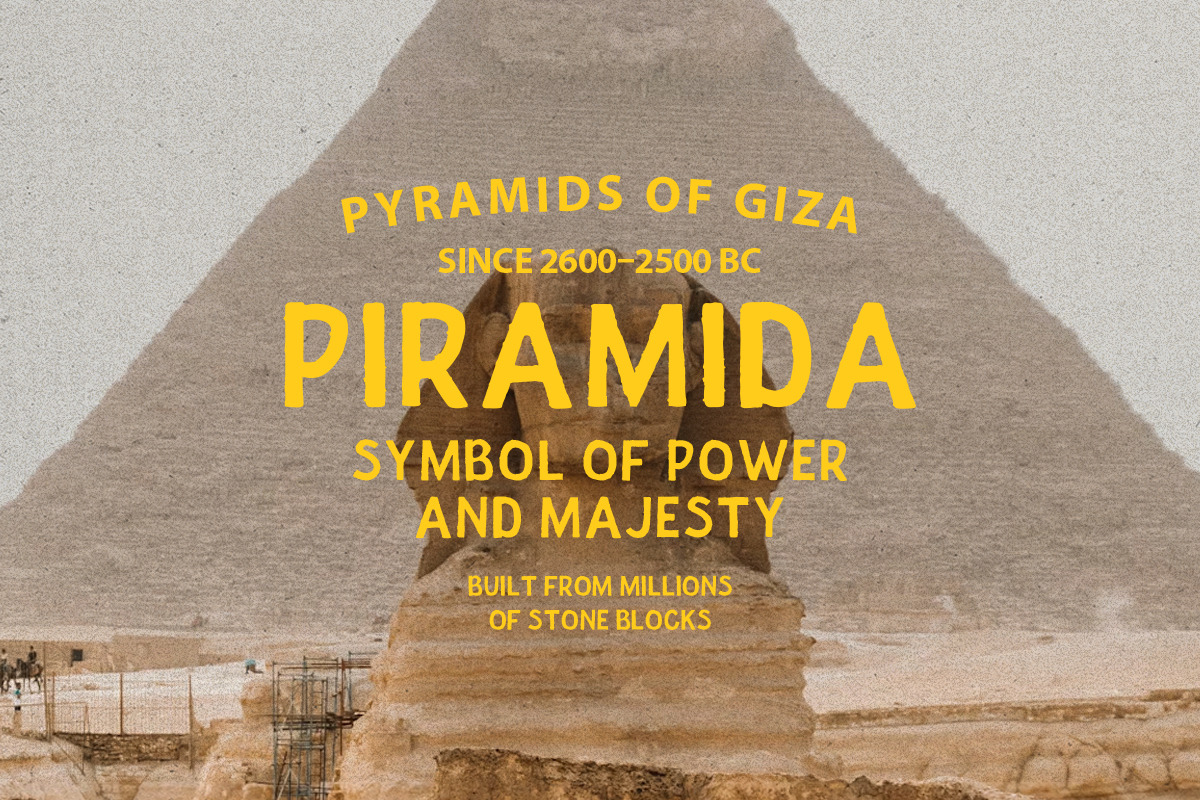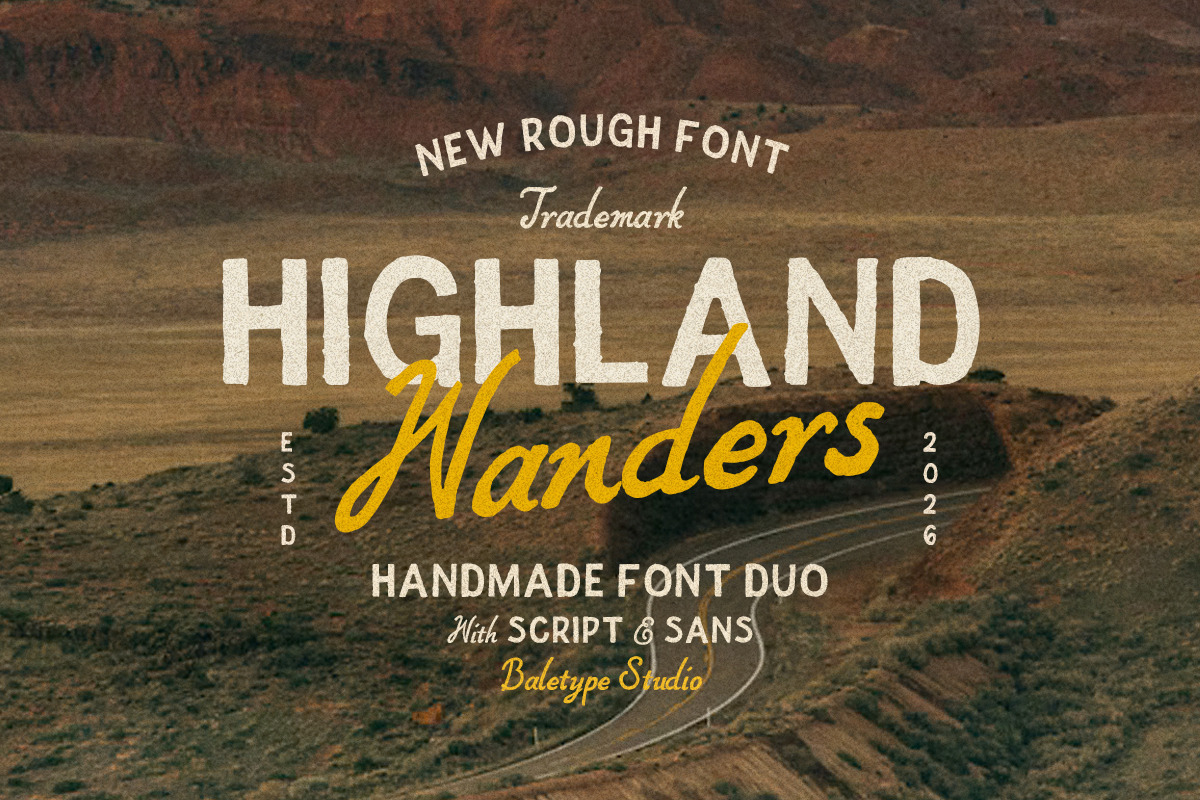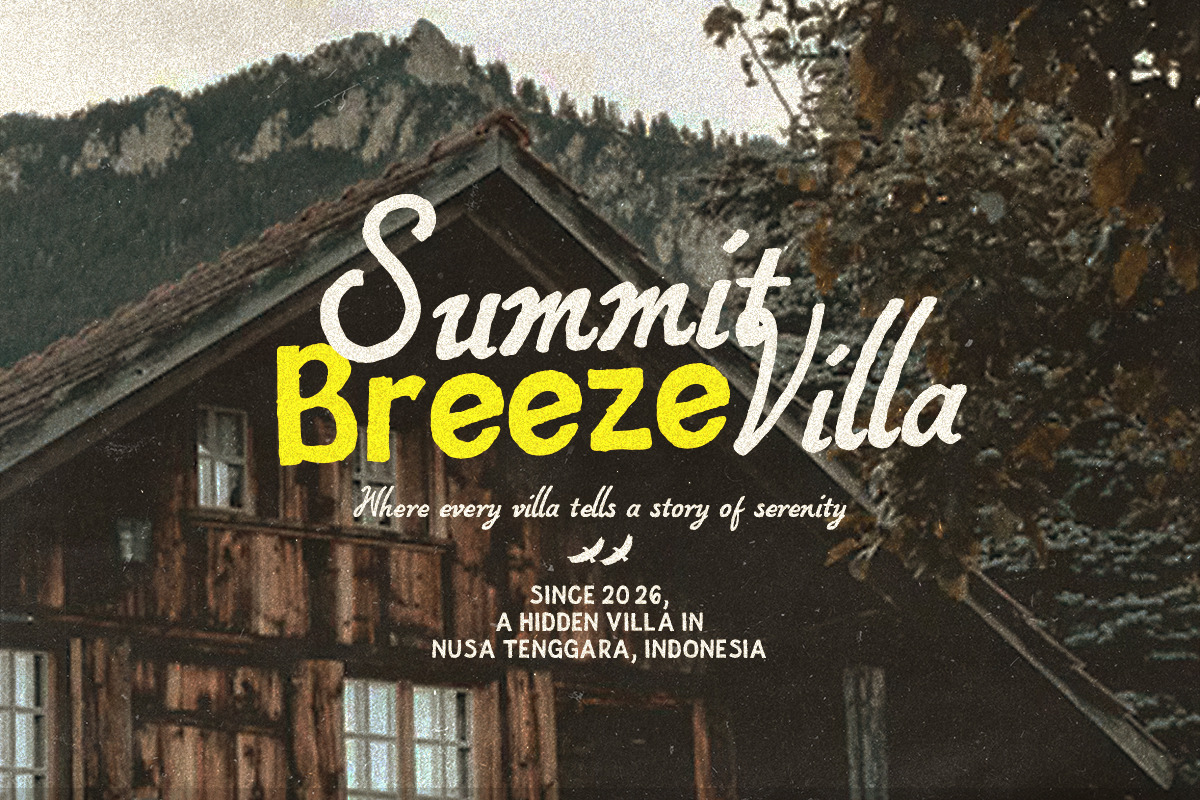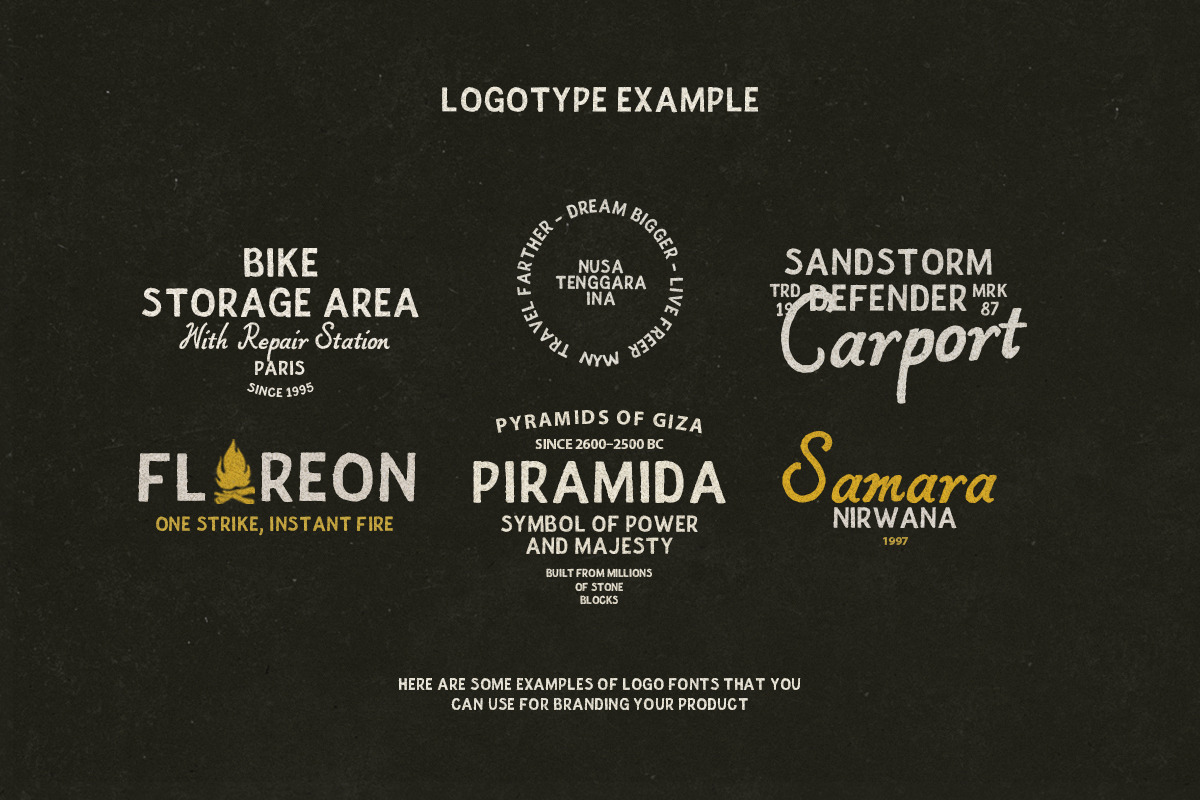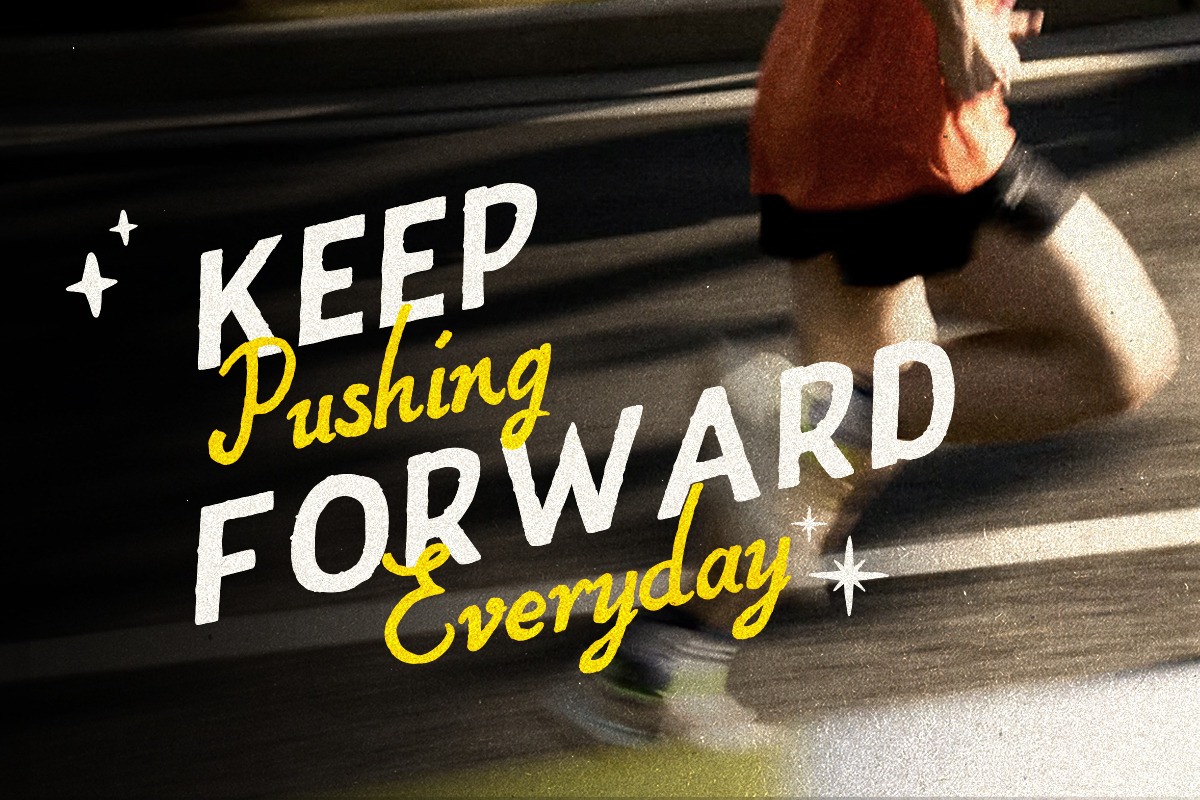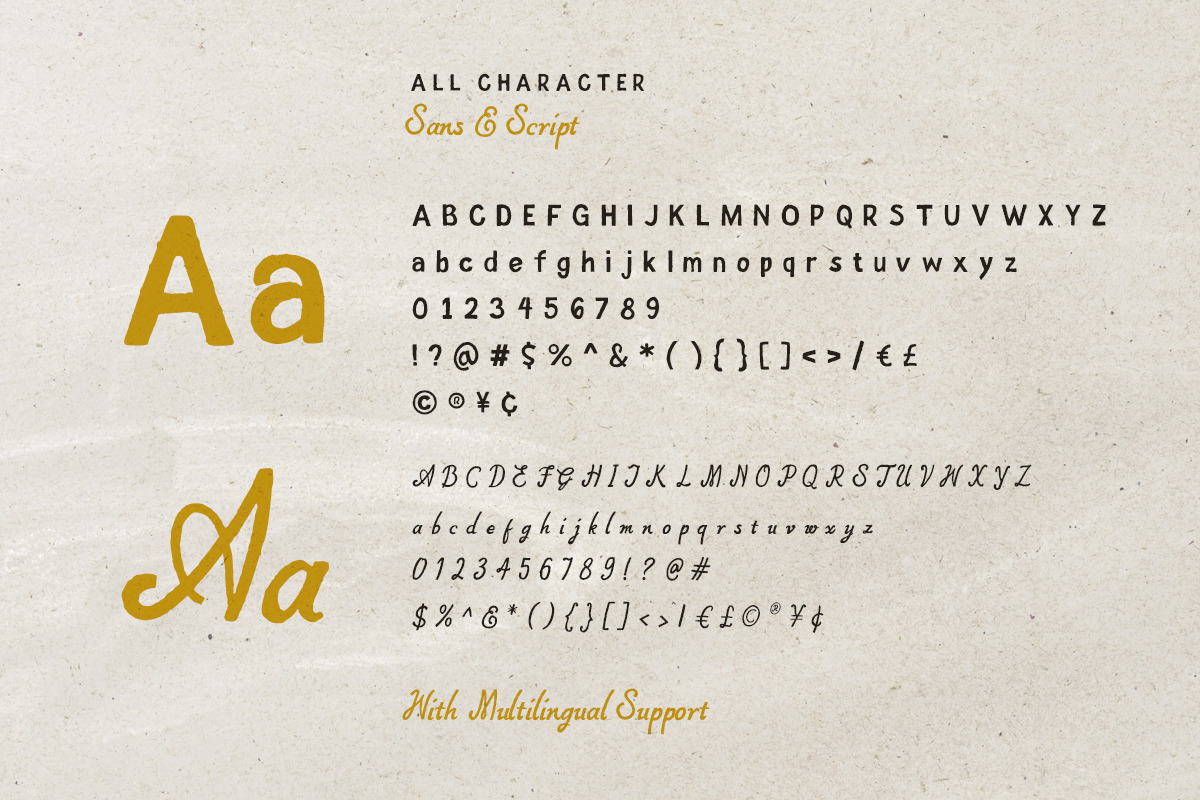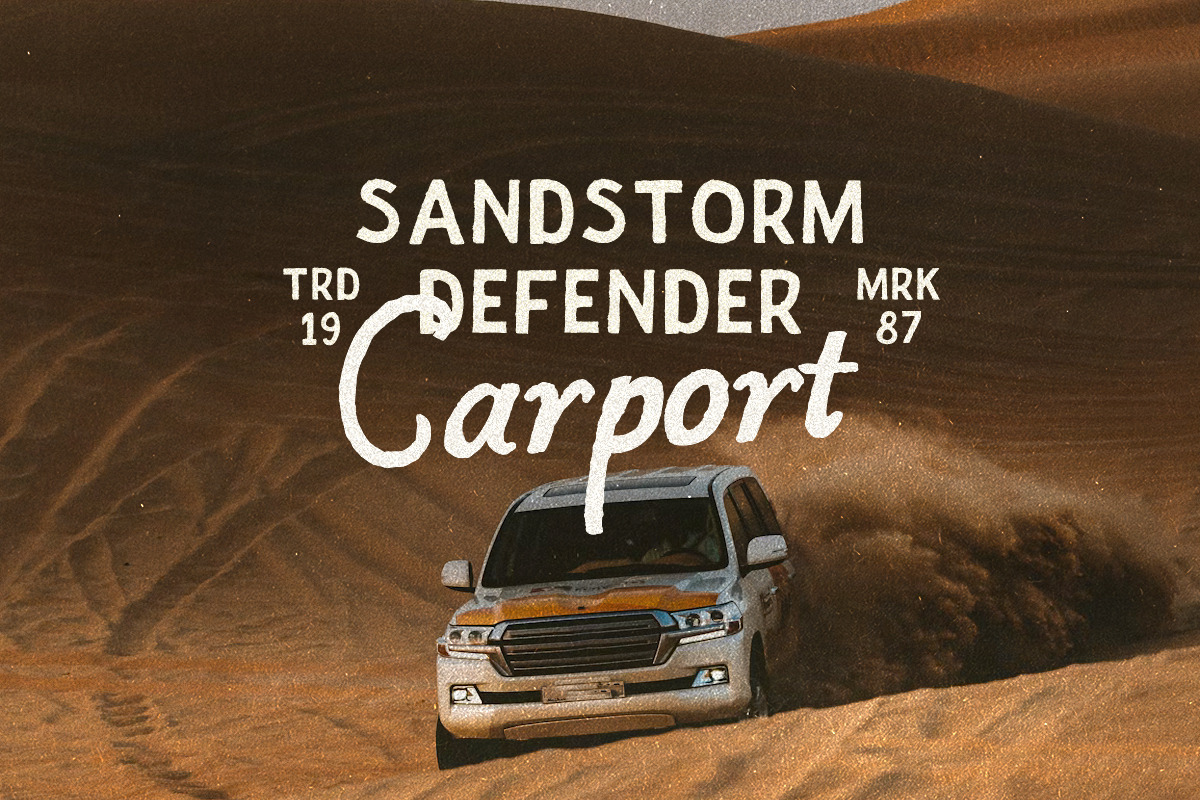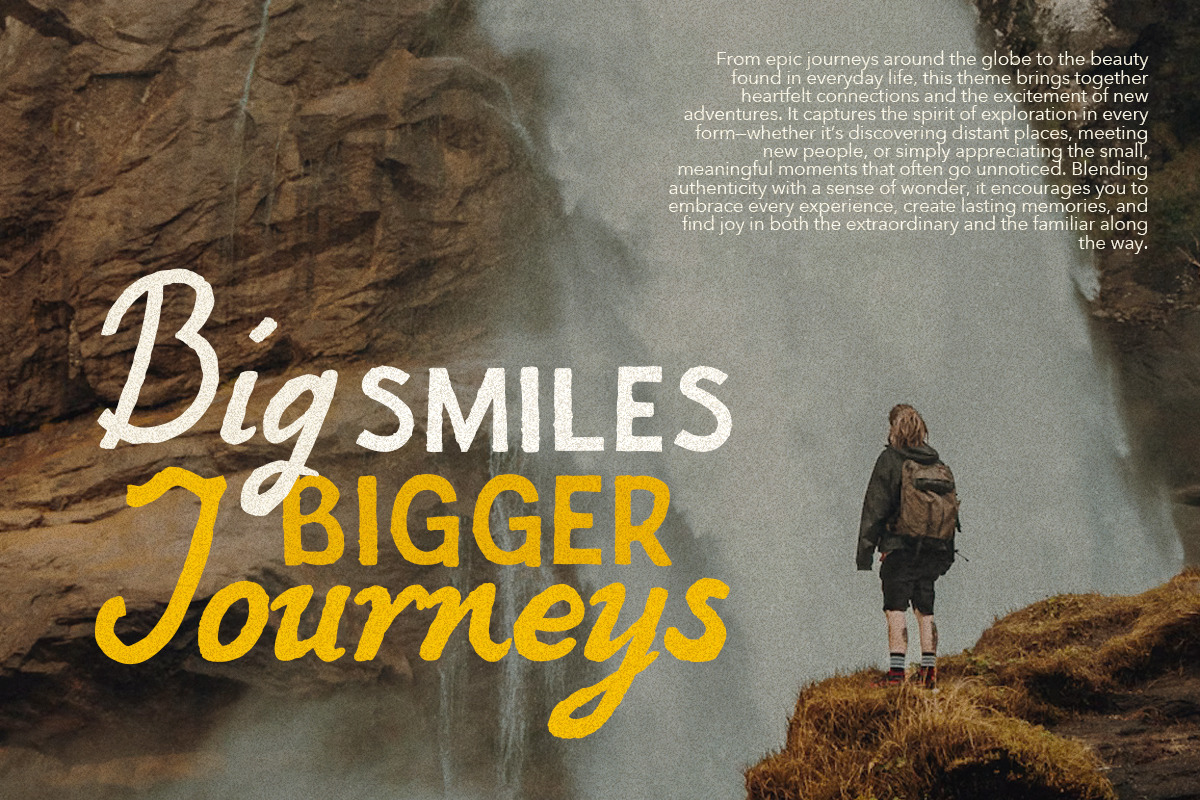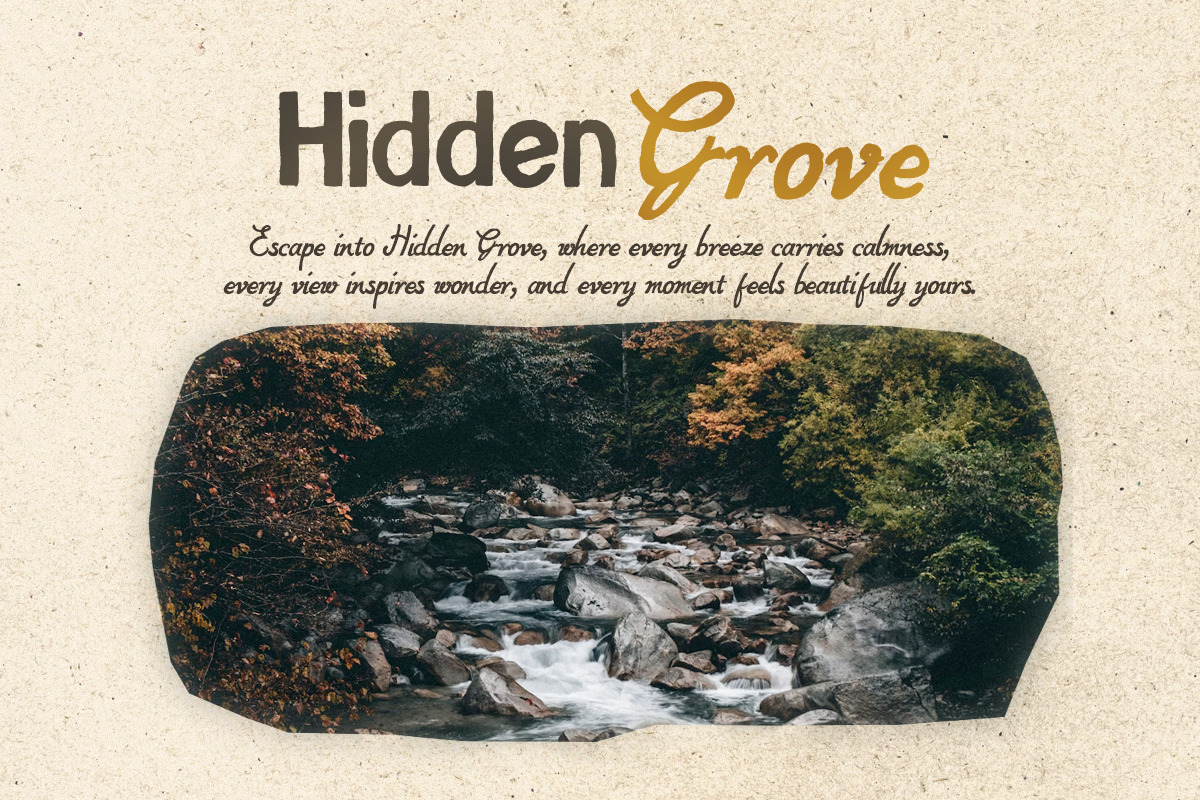
Highland Wanders - Rough Font Duo
Highland Wanders is a rough hand-drawn font duo. Comes with simple sans and italic script that will complement each others. You can use this font for any purposes such as poster, outdoor project design, handmade greeting card, quotes, looking good for logotype and branding that needs handmade touch. This font also support multi language.